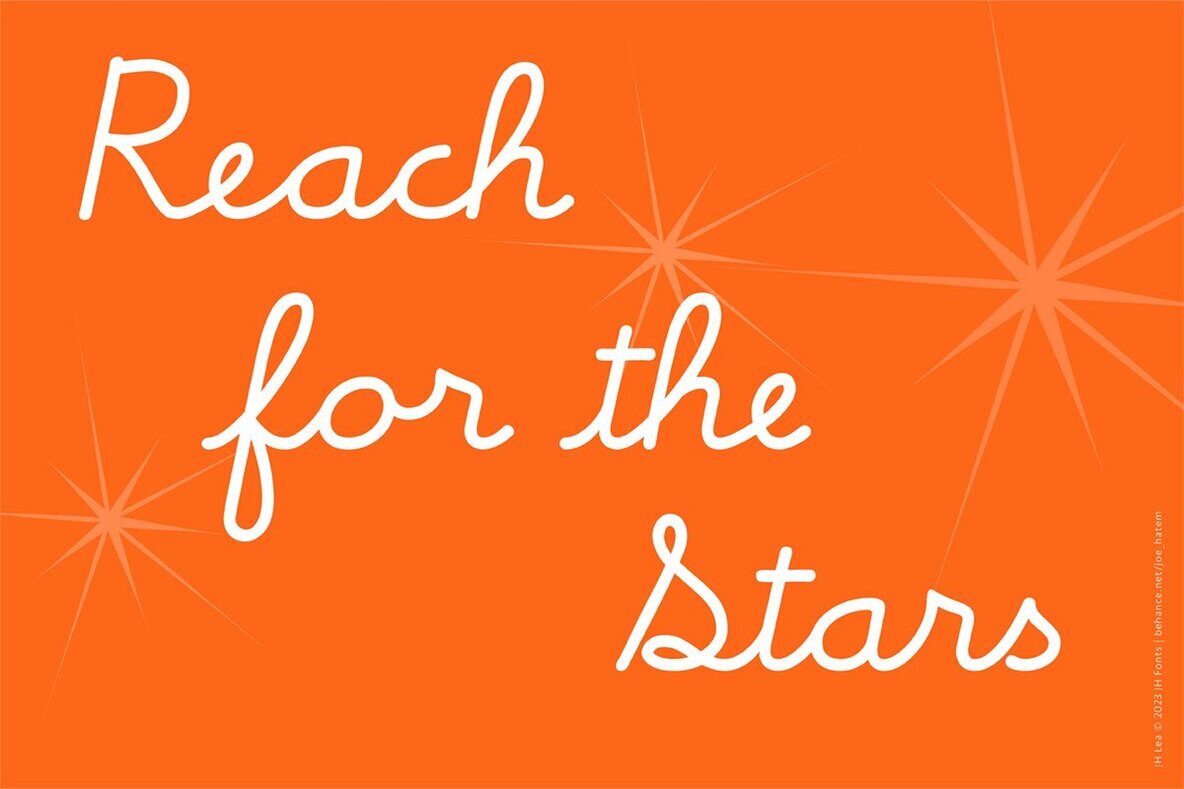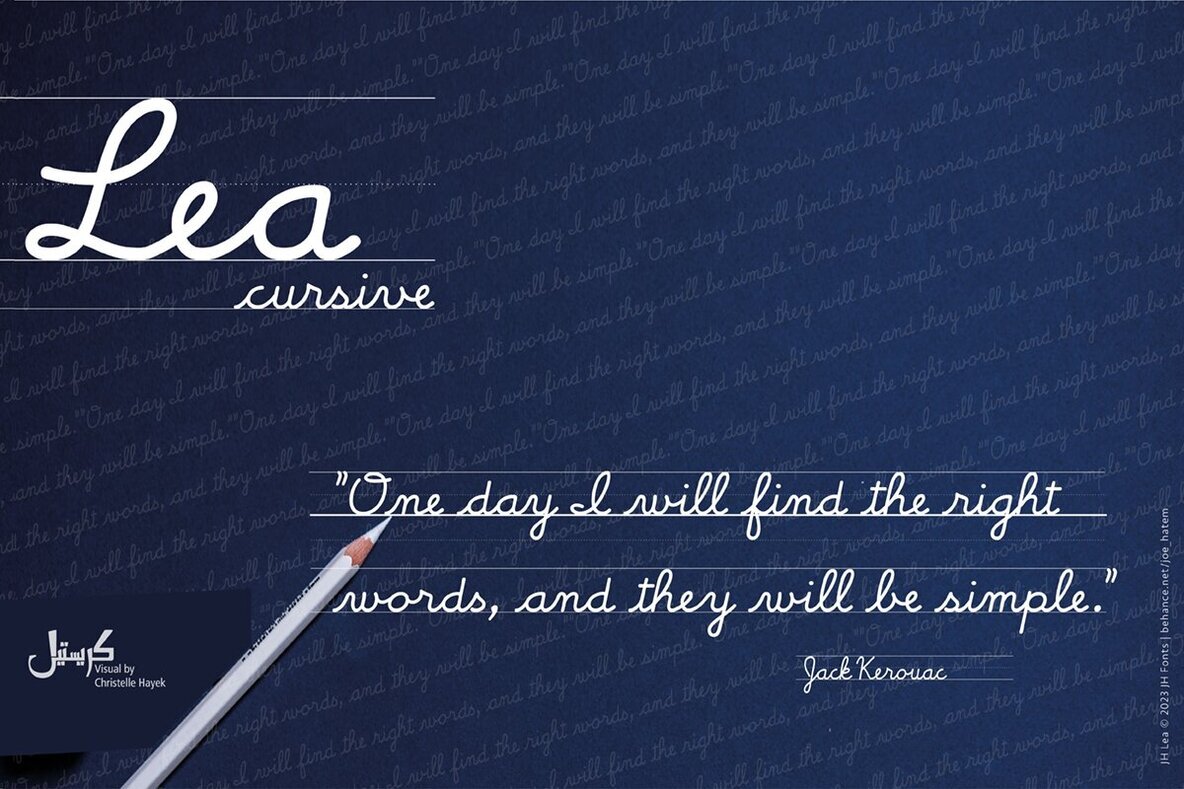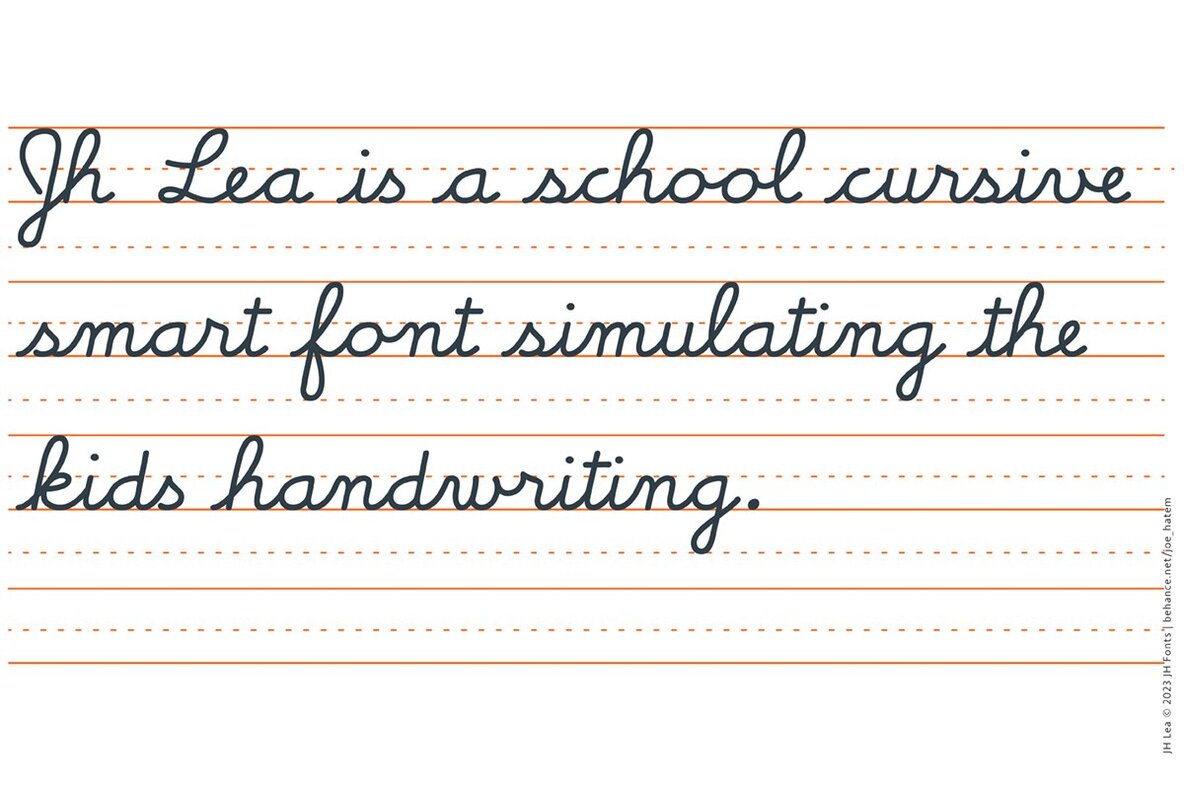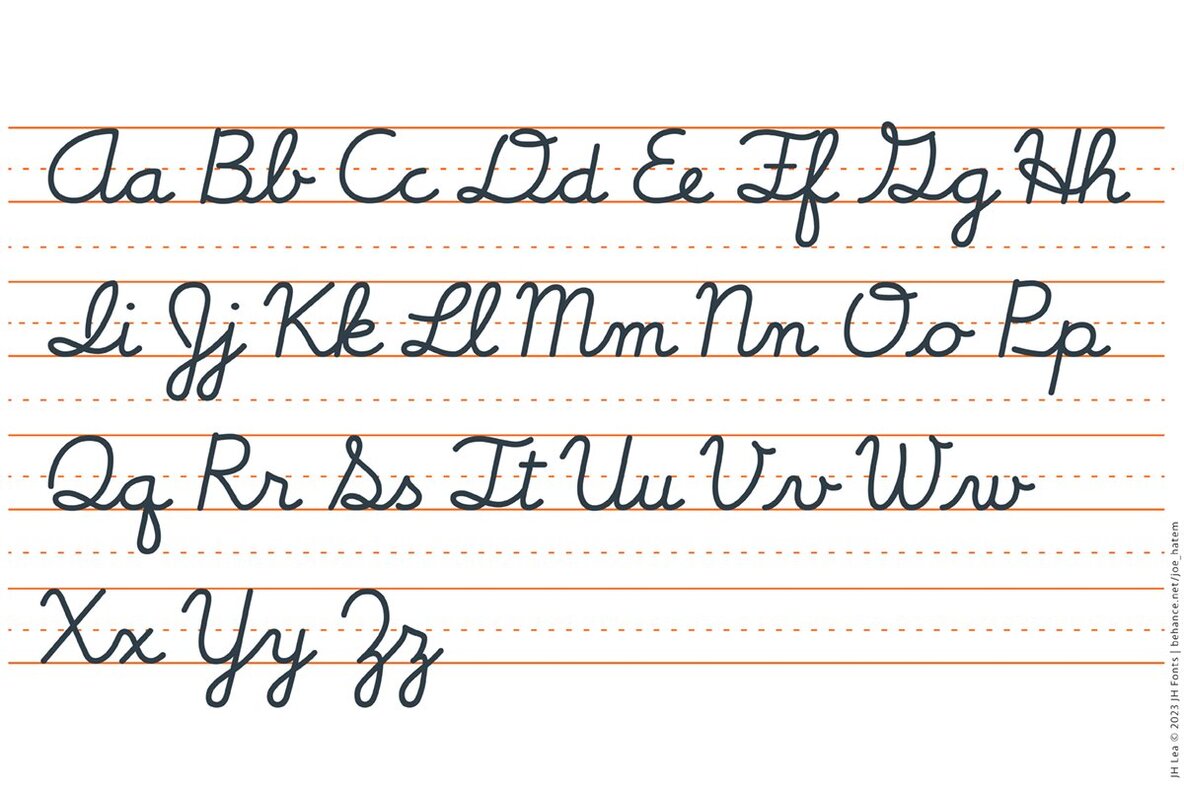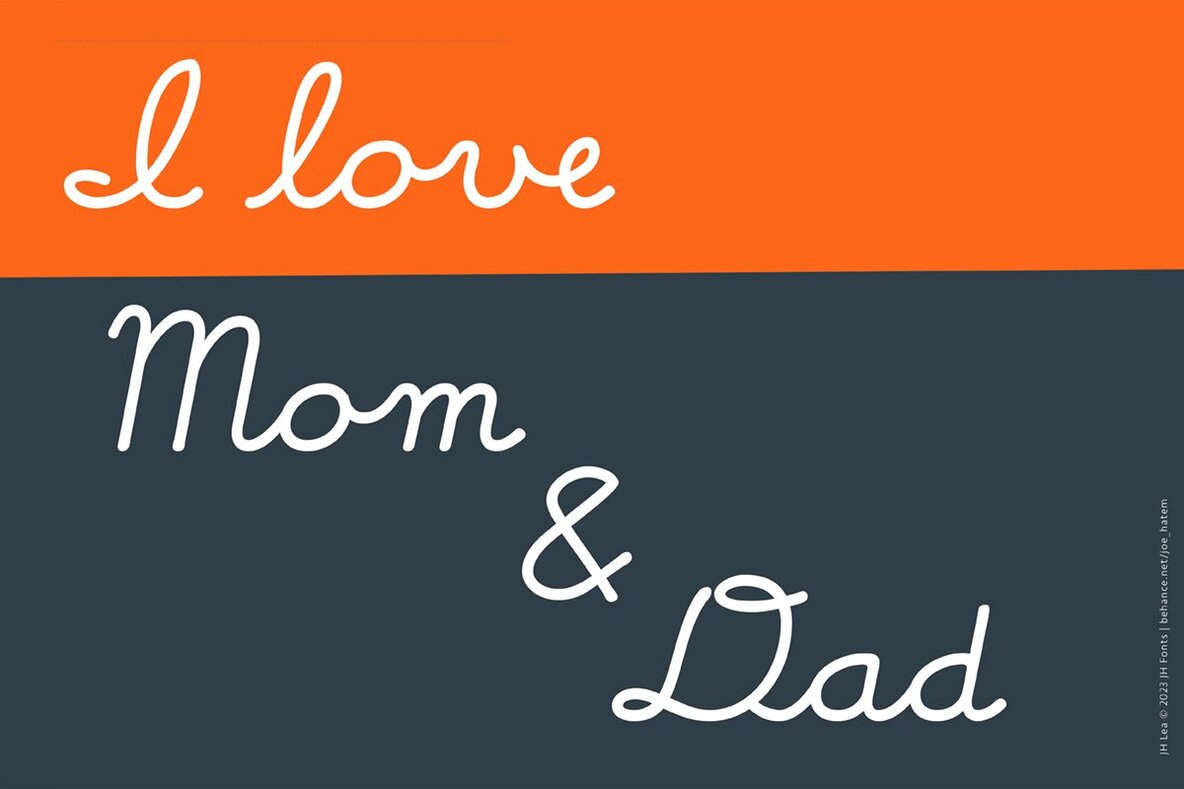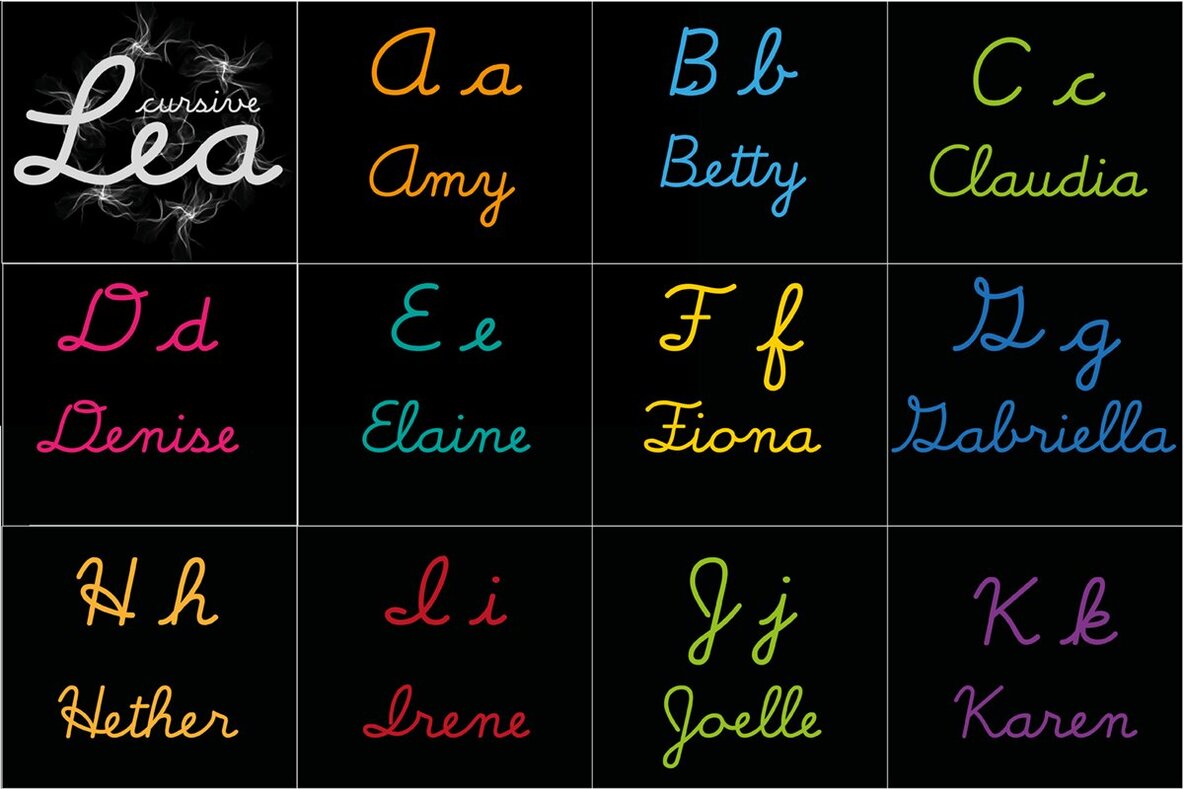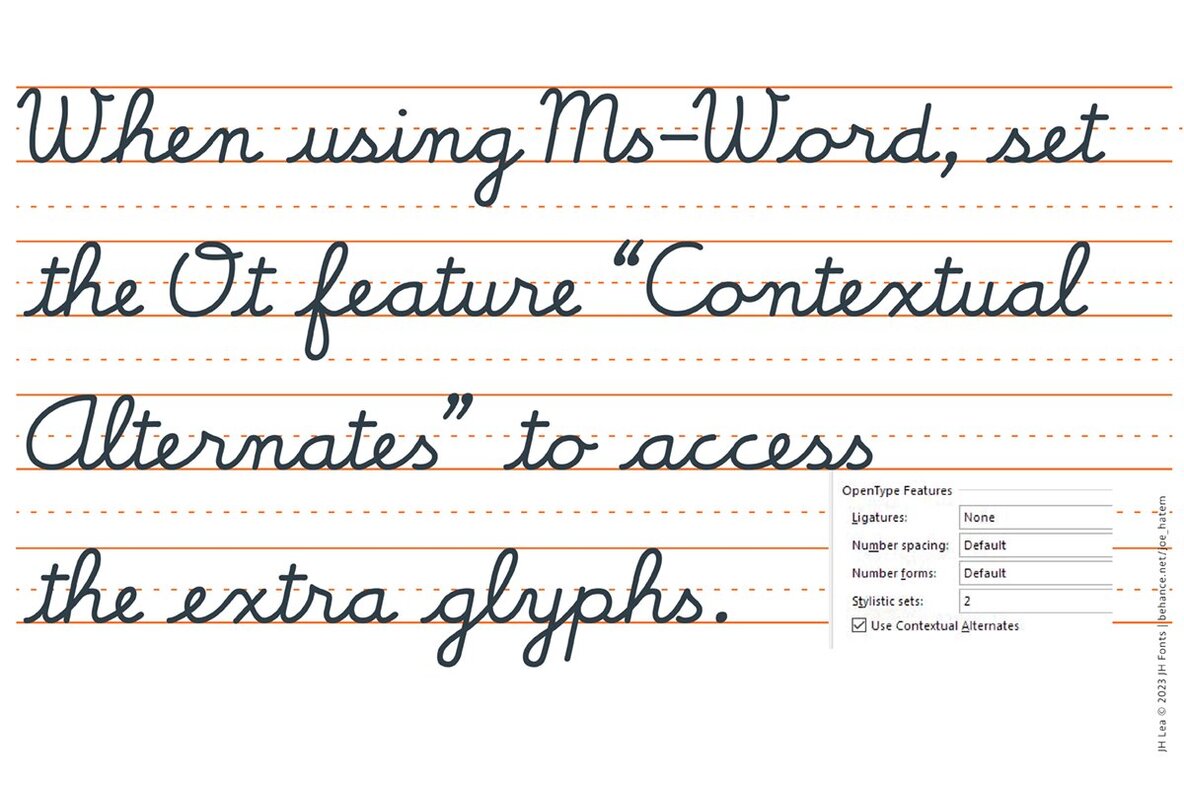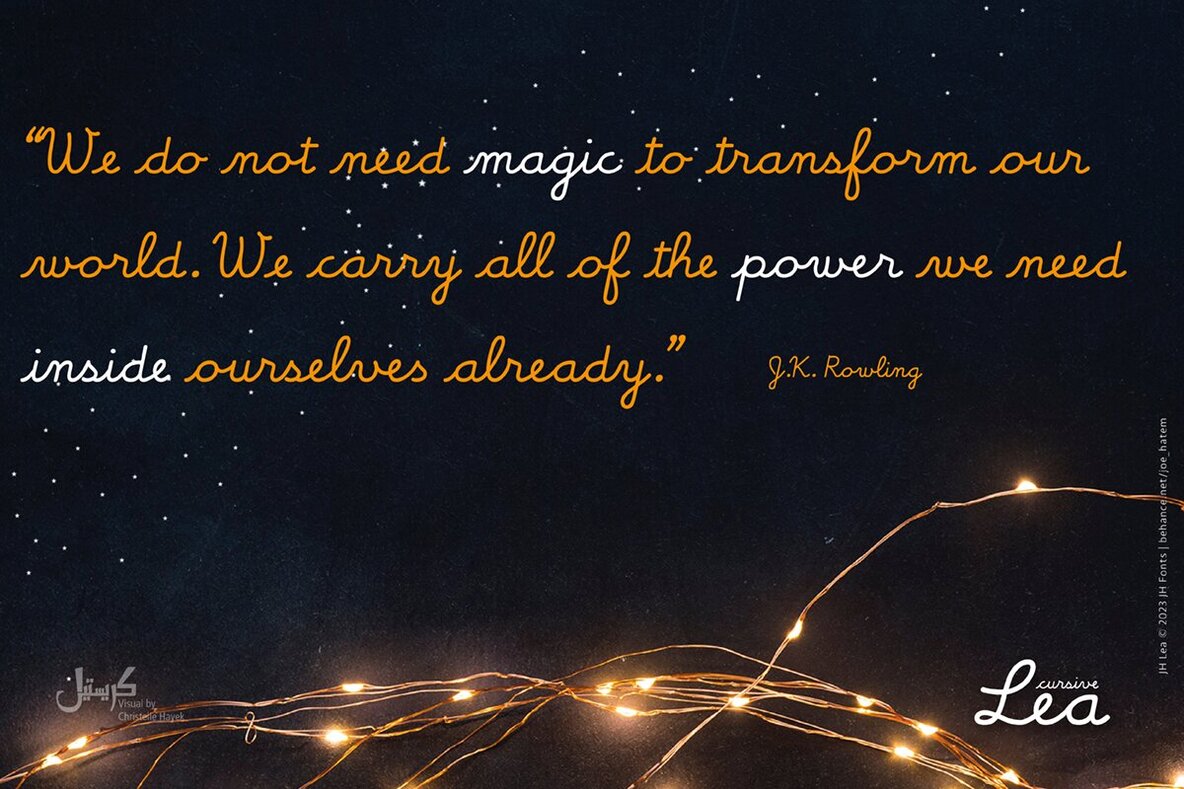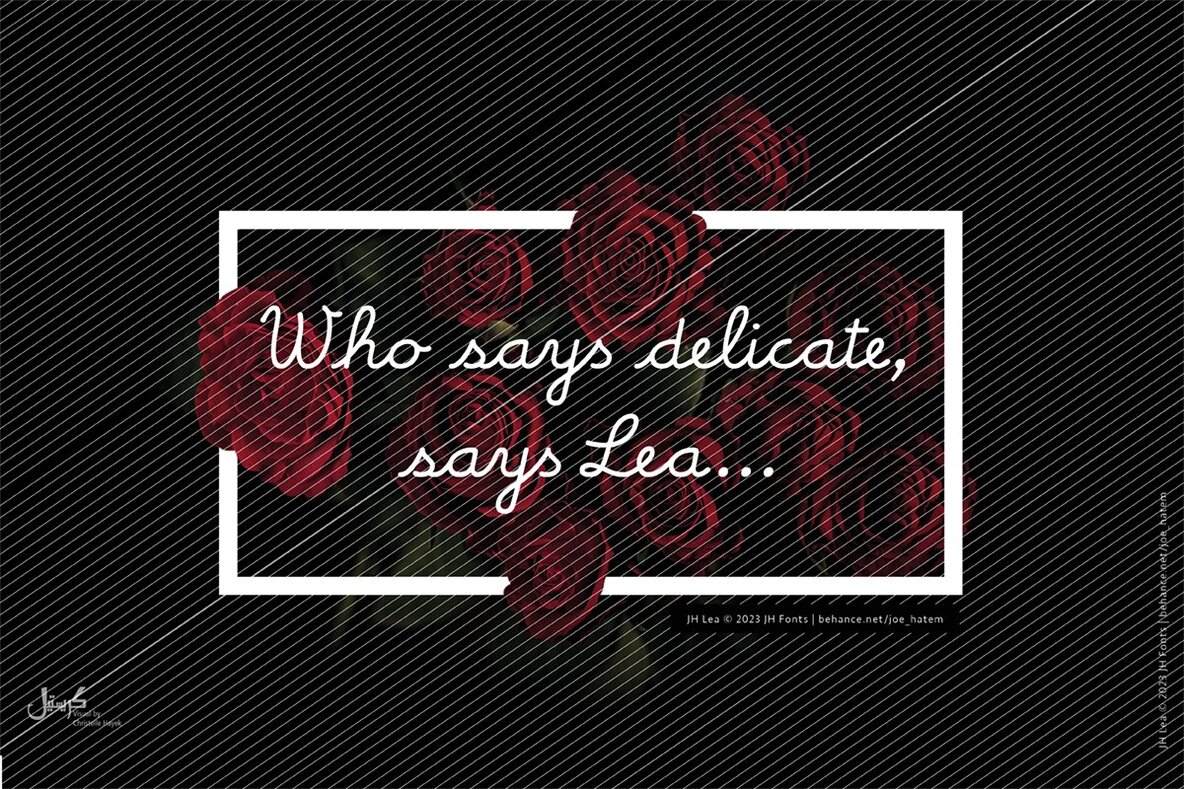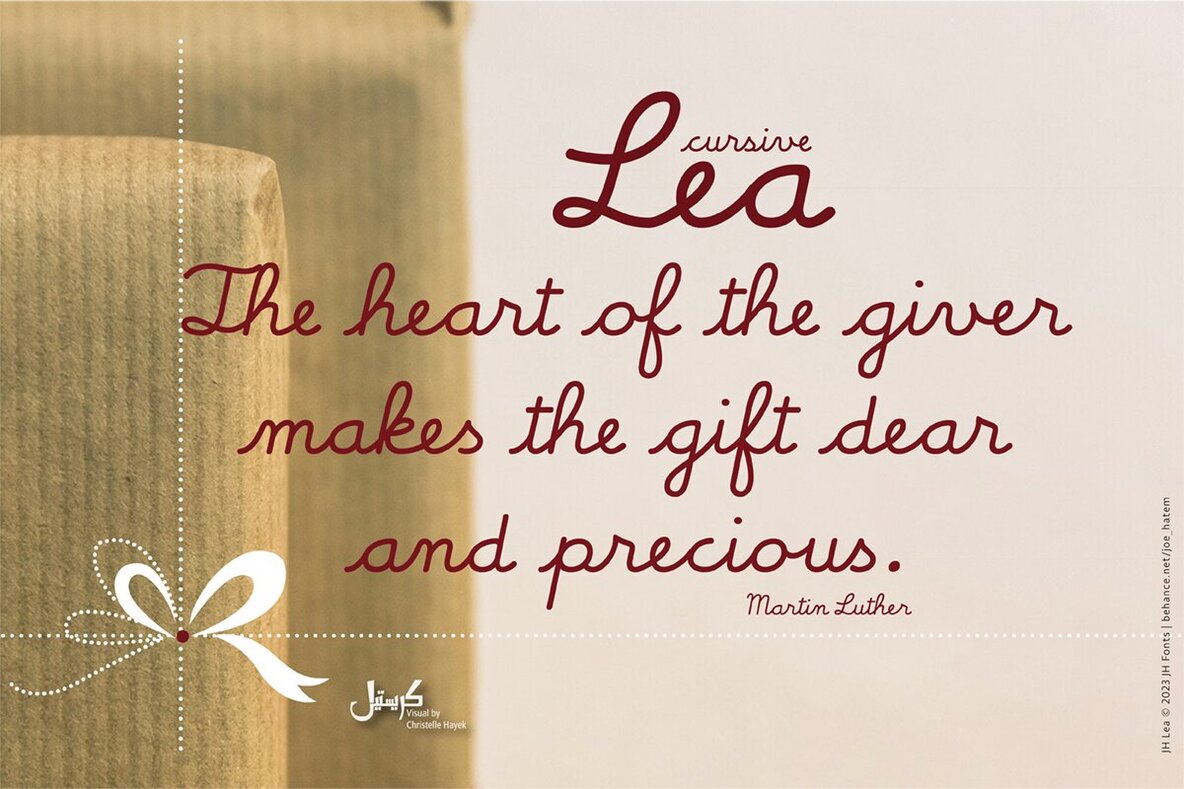
JH Lea Font
JH Lea
JH Lea is a typeface designed to mimic cursive handwriting, making it an ideal choice for children's books and educational materials. This font captures the essence of a child's first calligraphy experience, offering a playful and authentic touch to any project.JH Lea: Cursive Typeface for School Kids